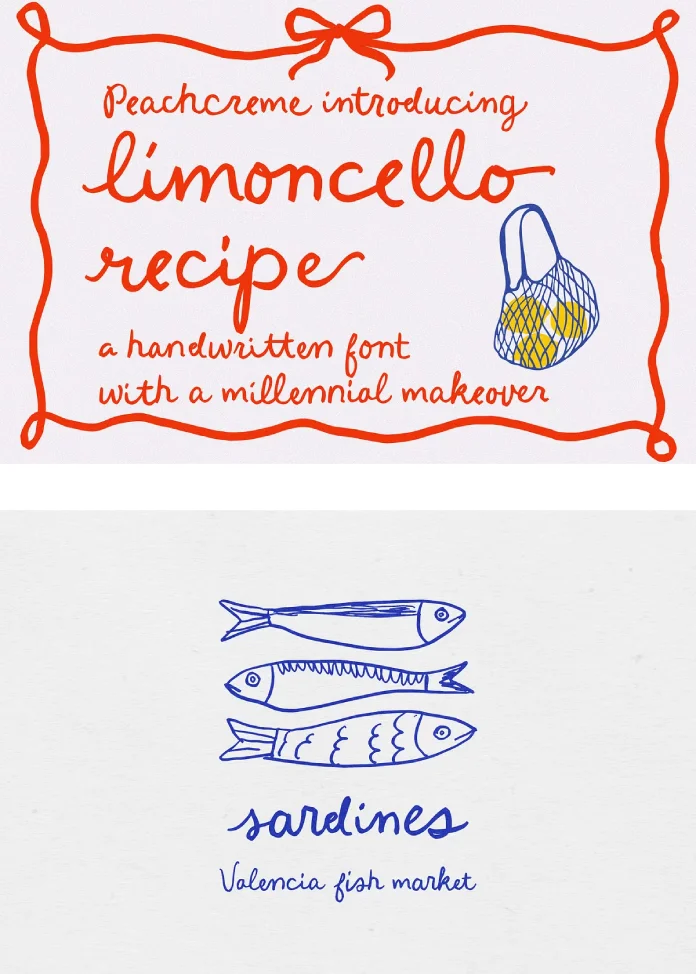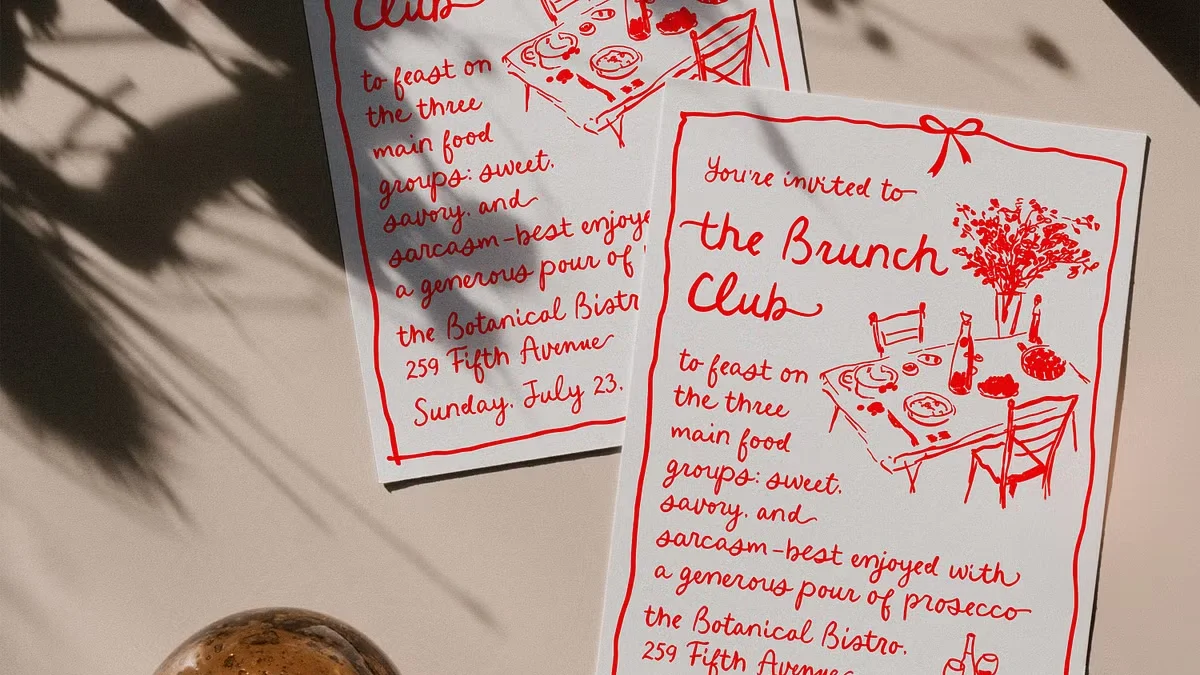
The Limoncello Recipe typeface, a delightful creation by PeachCreme, is a lovely font based on a natural handwriting style. Think of those cherished, handwritten family recipes, the pages softened by time and love – the Limoncello Recipe typeface captures that very essence. This specific handwritten font brings an approachable, personal feel to any project, inviting viewers in with its perfectly imperfect charm. It’s a testament to the beauty found in human touch. So, what makes this particular handwritten font so captivating?
What Defines the Unique Appeal of the Limoncello Recipe Typeface?
The allure of the Limoncello Recipe typeface isn’t just about aesthetics; it’s about emotion. It connects with us on a human level. How does this typeface achieve this profound connection?
The Beauty of Imperfection in This Handwritten Style
The Limoncello Recipe font embraces the delightful quirks of genuine handwriting. Imagine someone jotting down a quick note or, indeed, a limoncello recipe. You’d see delightfully uneven lines. You’d notice a casual, unrefined style. These aren’t flaws; they are hallmarks of authenticity, beautifully rendered in this unique script. This font doesn’t shy away from these characteristics. Instead, it celebrates them. Each letter in the typeface seems to dance with a unique rhythm, much like individual handwriting. This creates an immediate sense of intimacy and personality. Isn’t that what you want your designs featuring this handwritten style to convey? A feeling of genuine connection?
Limoncello Recipe Typeface: Ligatures Unveiled
Now, let’s talk about something truly special within the Limoncello Recipe typeface: ligatures. It boasts an impressive 84 standard ligatures. What are these, you ask? Ligatures are special characters where two or more letters are joined together to form a single, flowing glyph. In a handwritten font like this one, they are crucial. They mimic the natural connections our pens make when we write. Think about how your ‘t’ might connect to an ‘h’, or an ‘o’ to an ‘n’. These ligatures ensure that text flows smoothly and organically. They reflect the true variations of handwriting, making your words look genuinely penned, not typed. This celebration of unique connections adds to its authentic charm.
Adding Flair with Swashes: The Limoncello Recipe Touch
Beyond ligatures, the font offers another layer of expressive potential: swashes. These are those lovely, decorative flourishes you can add to the beginning or end of letters when using this expressive font. Picture a gentle curl extending from the start of a capital letter, or a playful flick at the end of a word. The Limoncello Recipe font provides an assortment of these beginning and ending swashes. They give your words a laid-back elegance, a touch of sophisticated whimsy. These alternates allow for a delightful freedom in your designs. You can echo the spontaneous, joyful scribbles one might find in the margins of a secret family recipe book. Don’t they just add a wonderful, carefree personality, a signature of the typeface?
Meet PeachCreme: The Artist Behind the Limoncello Recipe Typeface
Behind every unique font, there’s a creative mind. The font is a product of PeachCreme. While details about individual artists can sometimes be elusive, their work, particularly the Limoncello Recipe typeface, speaks volumes. PeachCreme demonstrates a keen eye for detail and a passion for fonts that resonate with warmth and personality. They specialize in typefaces that carry a handcrafted feel, bringing a touch of artistry to the digital world. Supporting independent font foundries like PeachCreme means encouraging this kind of unique, human-centered design. Doesn’t knowing the source add another layer of appreciation?
Why the Limoncello Recipe Typeface Captures Hearts (And Designs)
So, what is it about the Limoncello Recipe font that makes it so appealing? It’s the way it masterfully blends rustic charm with a dash of whimsy. In a digital landscape often dominated by clean, sterile sans-serifs, a font like the Limon Recipe offers a breath of fresh air. It is a reminder that beauty often lies in the wonderfully imperfect. It’s approachable. It’s friendly. It feels genuine. This authenticity is incredibly valuable for brands and projects aiming to establish a relatable, trustworthy image when they choose the Limoncello Recipe typeface. Have you noticed how designs with a personal touch tend to stick with you longer? This remarkable font achieves just that.
Uncorking Creativity: Where to Use the Limoncello Recipe Typeface
The versatility of the typeface is one of its strongest suits. Its unique character lends itself beautifully to a variety of applications. Are you wondering where this charming font could elevate your next project? Let’s explore some ideas where the Limoncello Recipe typeface truly shines.
Branding with a Personal Touch using the Limoncello Recipe Typeface
For businesses that want to convey approachability, craftsmanship, or a homespun feel, the Limoncello Recipe typeface is a fantastic choice. Think artisanal food producers, bespoke craft makers, independent cafes, or boutique brands. Imagine a logo for an organic bakery or a farm-to-table restaurant featuring this distinctive script. It immediately communicates a sense of care and authenticity. Using this handwritten typeface can help create a quirky brand identity that stands out. It’s about telling a story, and this typeface tells one of warmth and individuality. Could your brand benefit from such a narrative, perhaps by incorporating this unique design font?
Invitations That Speak Volumes with This Handwritten Font
Limoncello Recipe shines brightly in the realm of event stationery. For wedding invitations, baby shower announcements, or intimate party invites, it sets a wonderfully charming and personal tone. The natural, handwritten style feels as if you’ve personally penned each invitation. The available swashes can add an extra touch of elegance or playfulness, depending on the occasion. Using the typeface for such personal correspondence makes the recipient feel truly special. It suggests an event filled with warmth and genuine connection. Isn’t that the perfect first impression for any celebration where this elegant script sets the mood? Many find it to be the best handwritten font for rustic branding and events.